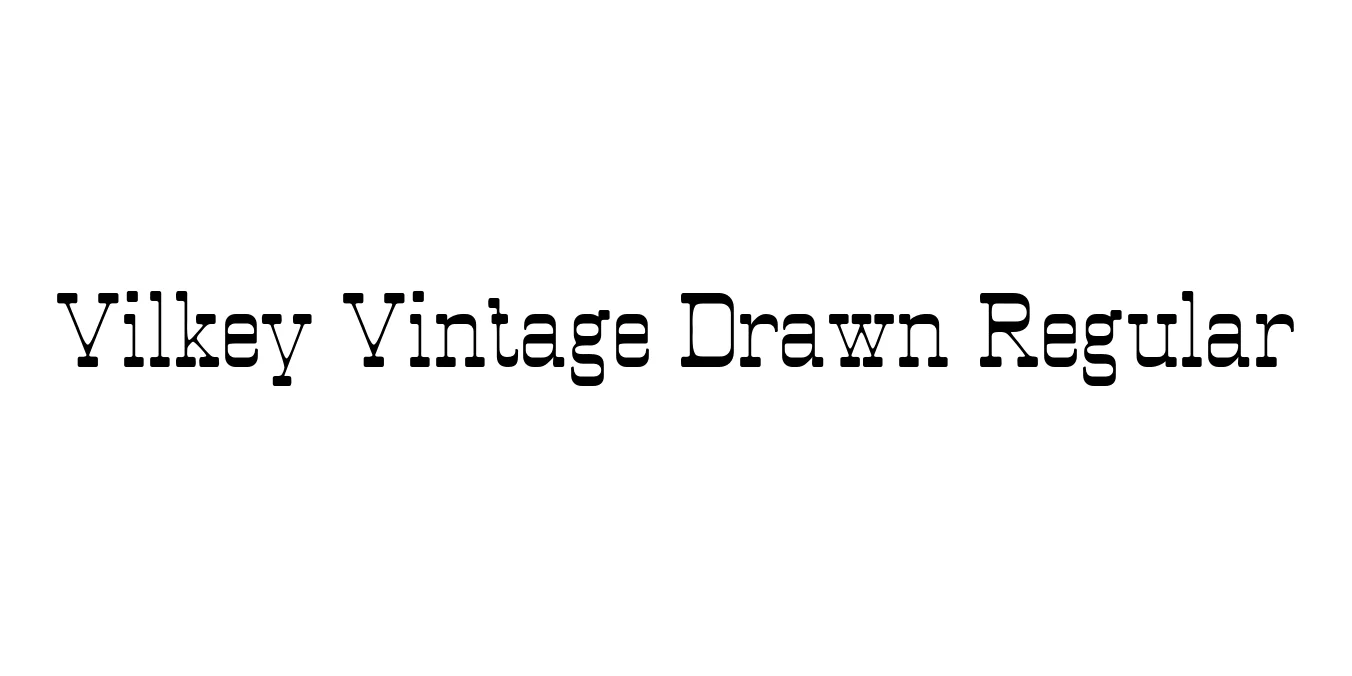
Vilkey Vintage Drawn Regular
Designed by Pratama Caliph
Vilkey Vintage Drawn Regular is a masterfully crafted typeface that captures the essence of classic, hand-lettered aesthetics. Designed with a meticulous eye for detail, this font features organic textures and slightly irregular strokes that evoke a sense of nostalgia and artisanal craftsmanship. It is part of the broader Vilkey family, which is celebrated for its ability to blend traditional serif structures with a rugged, hand-drawn personality.
This font is particularly effective for projects that require a touch of human warmth and authenticity. Whether used for heritage branding, artisanal packaging, or editorial headlines, Vilkey Vintage Drawn Regular provides a distinctive visual identity that stands out in a digital world. Its versatile nature allows it to bridge the gap between historical elegance and contemporary design, making it a favorite among graphic designers seeking a timeless look.
Vilkey Vintage Drawn Regular Best Uses
Perfect for creating authentic, heritage-style brand identities and emblems.
Ideal for artisanal products, craft beverages, and organic food labels.
Adds a nostalgic character to magazine headers, book covers, and story titles.
Effective for posters and social media graphics that require a handcrafted feel.